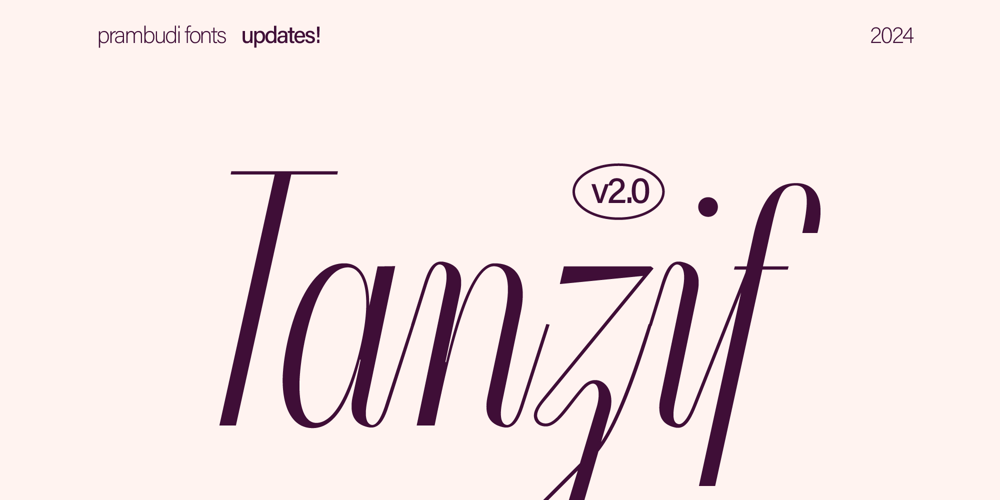
Tanzif Font Family was designed by Ilham Prambudiharjo and published by PeanutButter Type. Tanzif contains 1 styles and family package options. Tanzif a sleek and modern script font that adds a touch of sophistication to any design. With its smooth lines and stylish appearance, Tanzif is perfect for brands looking to make a statement. Whether you’re designing packaging, fashion materials, or branding, Tanzif brings elegance and style to your project. Try Tanzif today and see how it can elevate your creative work effortlessly.This version (2.0) is a re-imagine of previous version (1.0)Version 2.0 had:- 686 Glyphs total- 4 Stylistic Sets- 3 ligatures- Ordinals- Thousand contextual alternates- 278 Language Support- Oldstyle figures as default